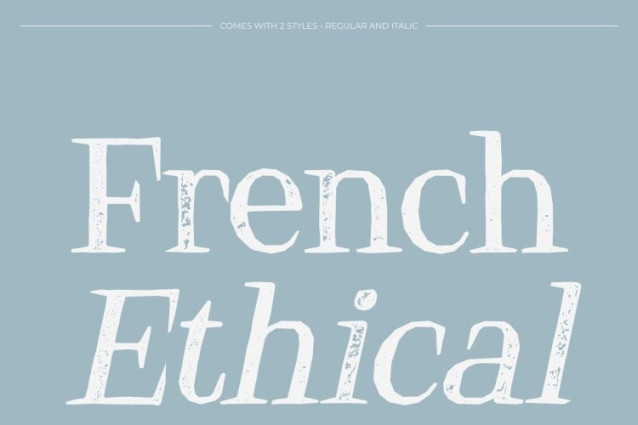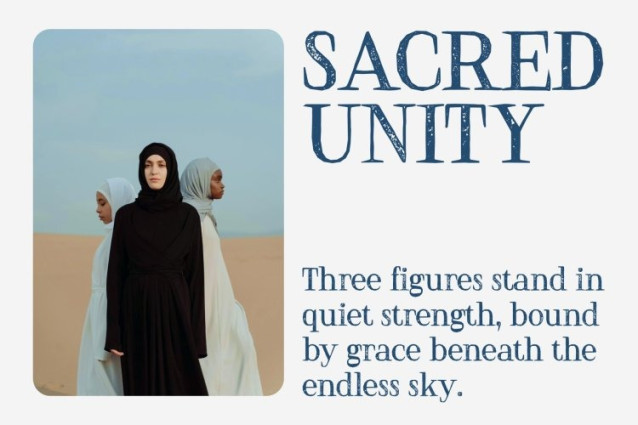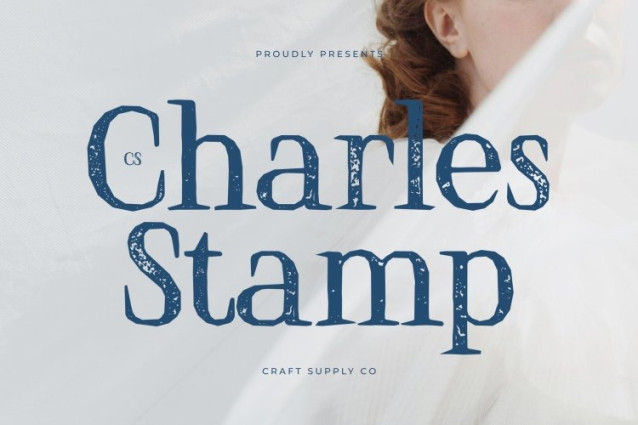
CS Charles Stamp Font
CS Charles Stamp Font – This is a refined serif font that embodies the strength and sophistication of classic typography. Its clean lines, balanced proportions, and well-defined serifs create a polished appearance that communicates professionalism and trust. Enhanced with a subtle stamp effect, the font gains a gentle vintage texture that adds depth and character while preserving its formal clarity.
Sophisticated Structure with Distressed Detail
The structured elegance of this font is complemented by a light distressed stamp texture, reminiscent of traditional printed documents and classic letterpress techniques. Slightly worn edges and ink-like variations give the typeface a tactile quality, adding personality without compromising readability or professional appeal.
Reliable and Versatile for Professional Design
This font maintains a dignified presence across a wide range of professional applications. Its clear structure and classic serif form ensure excellent readability, making it suitable for corporate communications, formal presentations, and editorial content where authority and clarity are essential.
Ideal for Corporate Branding and Editorial Work
Perfect for brand identities, corporate reports, editorial layouts, invitations, and official documents, delivers a sophisticated typographic voice. By blending timeless serif elegance with subtle vintage stamp texture, it offers a distinguished and memorable style that elevates professional design with confidence and refinement.